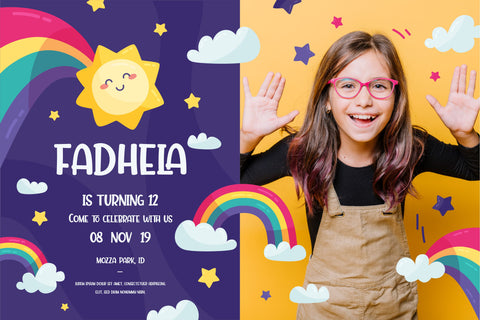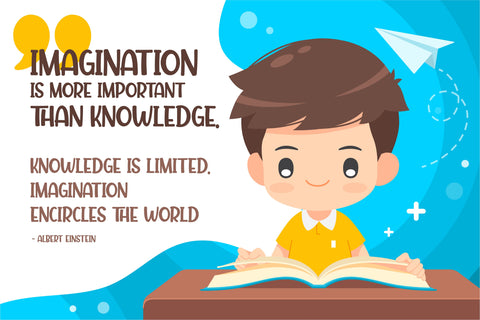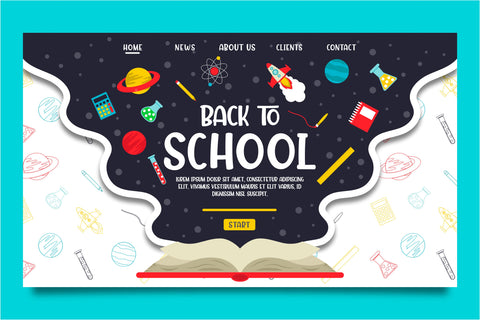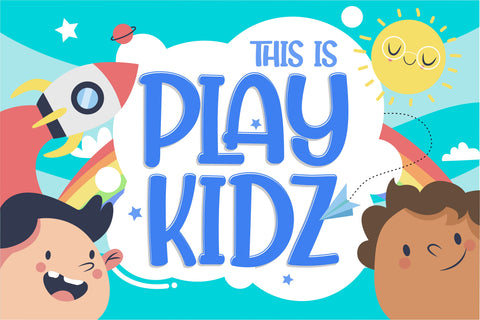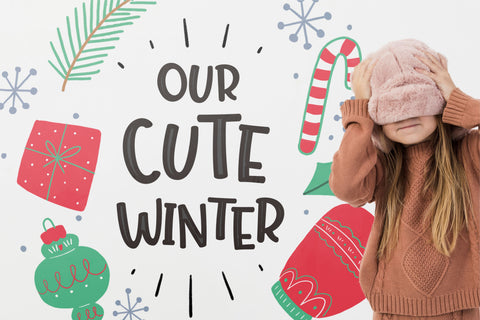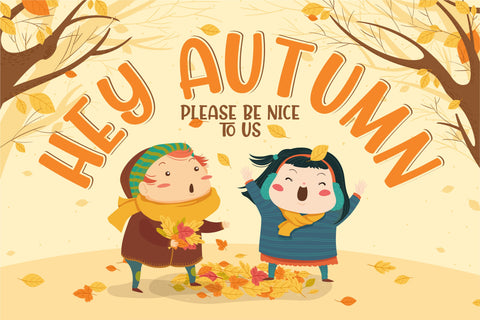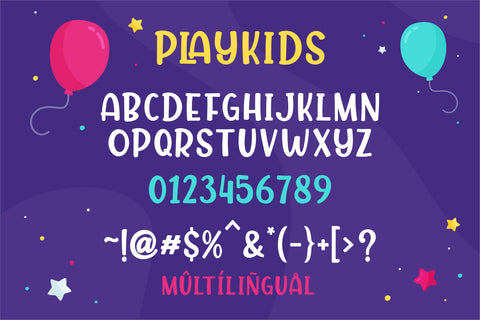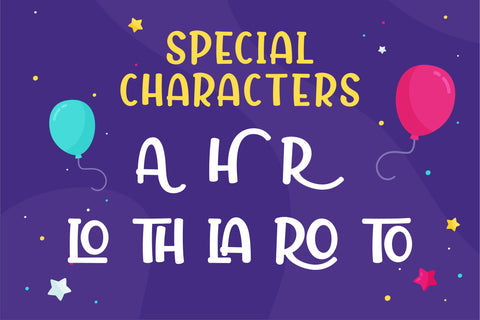
Playkidz - Playful Display Font
Say hello to the PLAYKIDZ font
Made from a chic brush, it will make your design more beautiful, cute, fun, and colorful.
- Character Set A-Z (All-caps)
- Numerals and Punctuation (OpenType Standard)
- Accents (Multilingual characters)